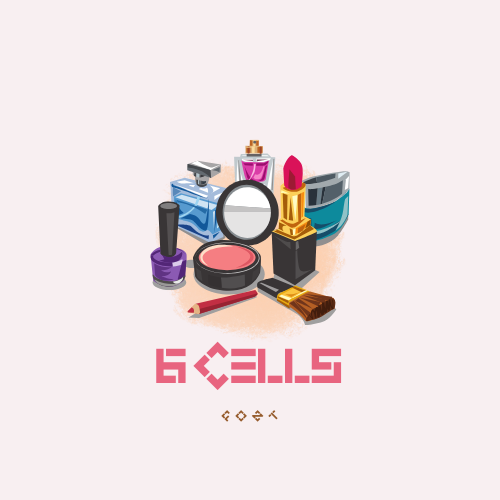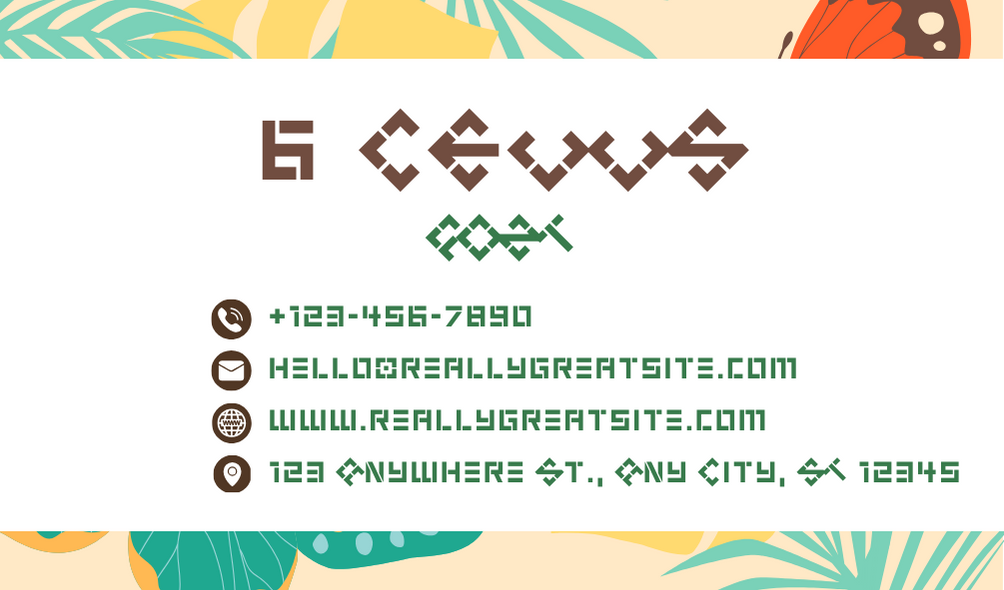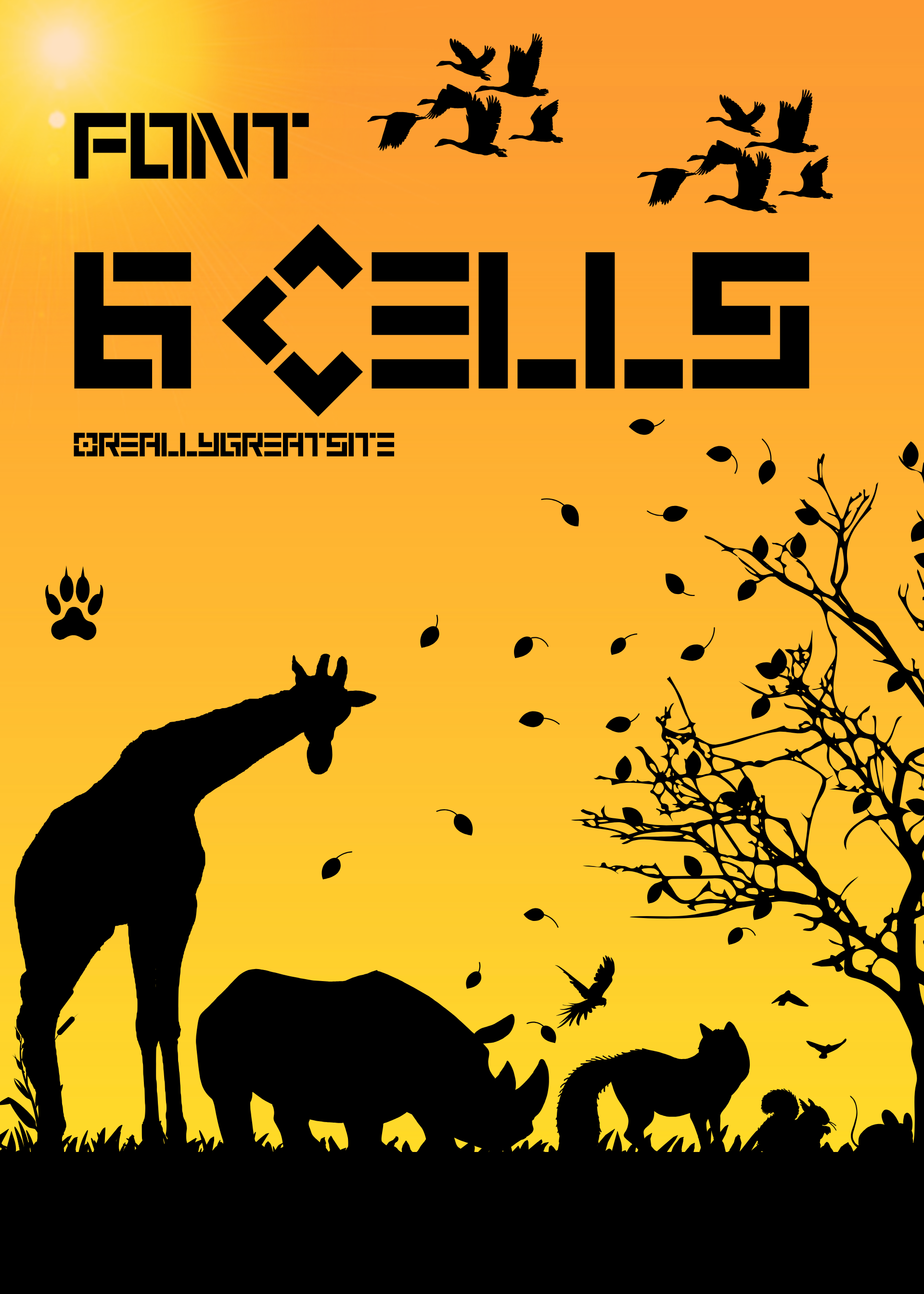
The font known as 6 Cells is an excellent choice for infusing your design projects with a touch of playfulness. It belongs to the Regular subfamily of fonts. This font, created by AM, is available for personal use at no cost.